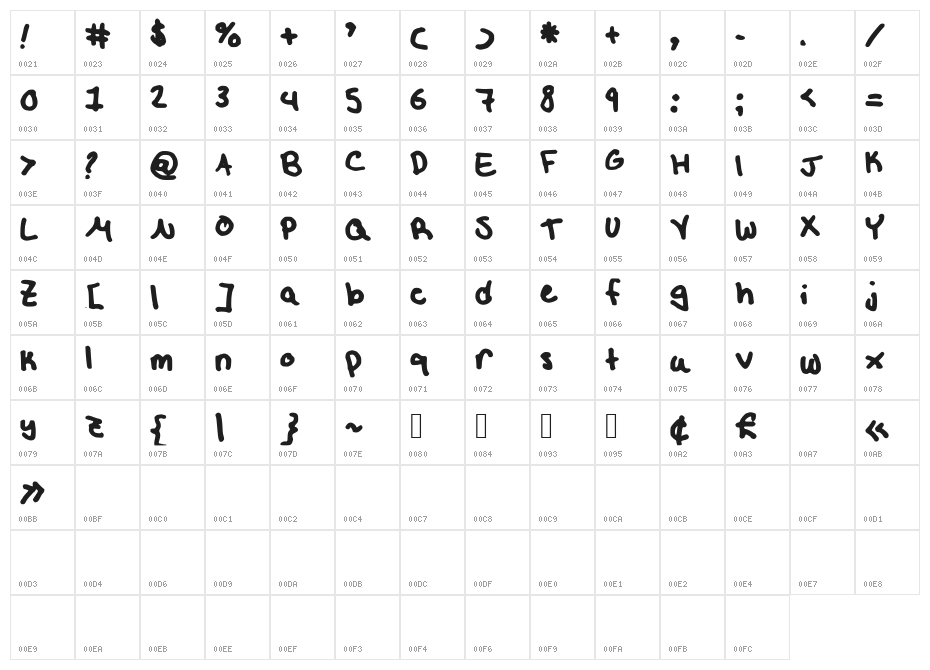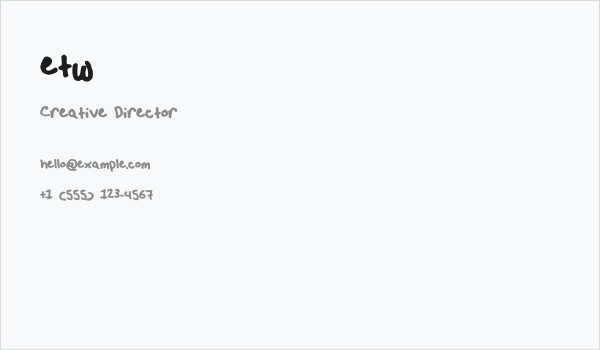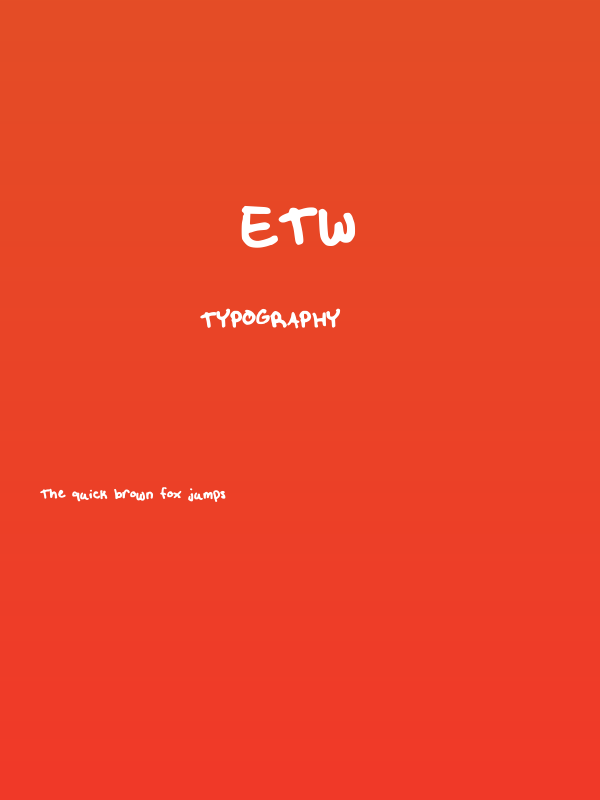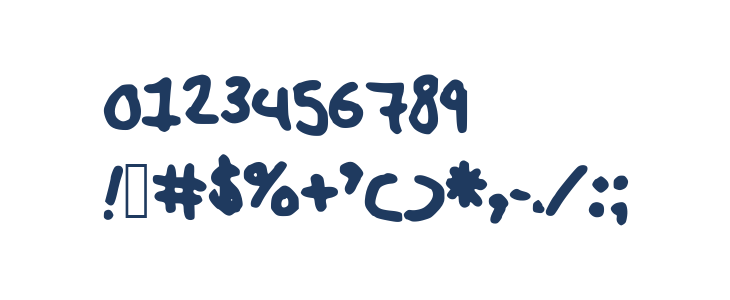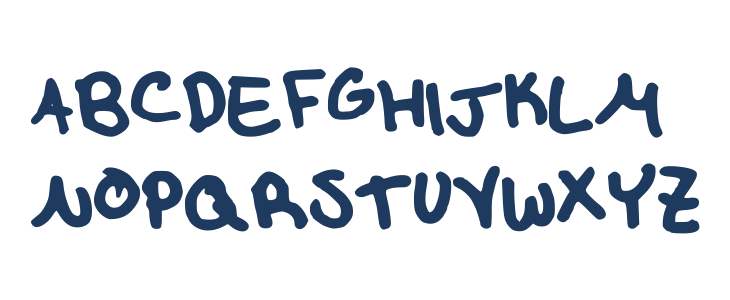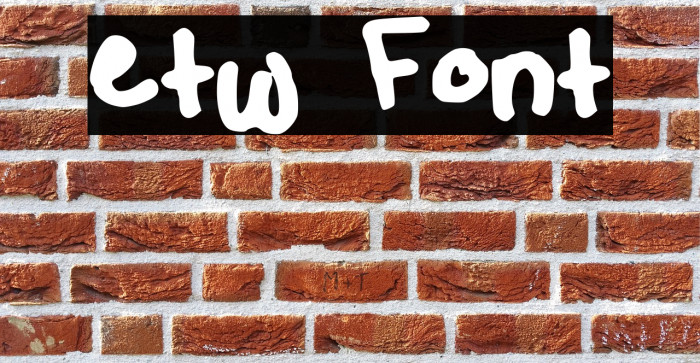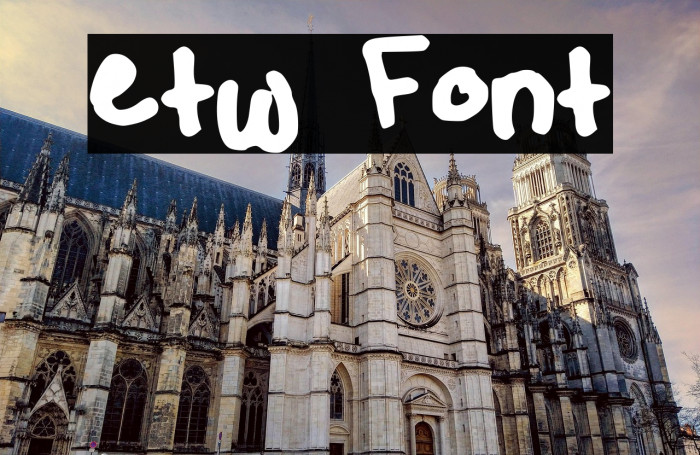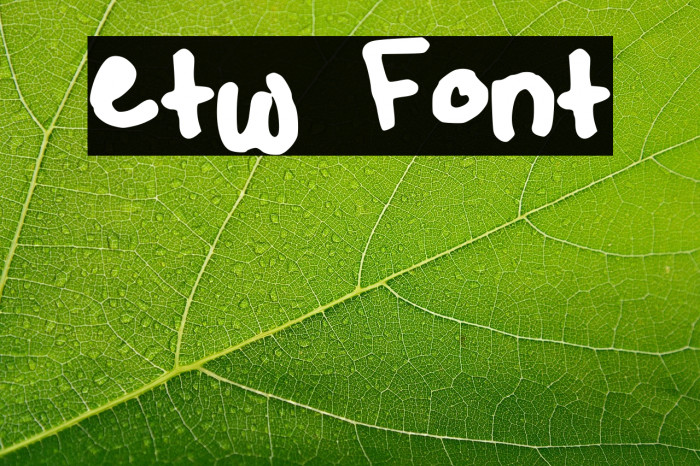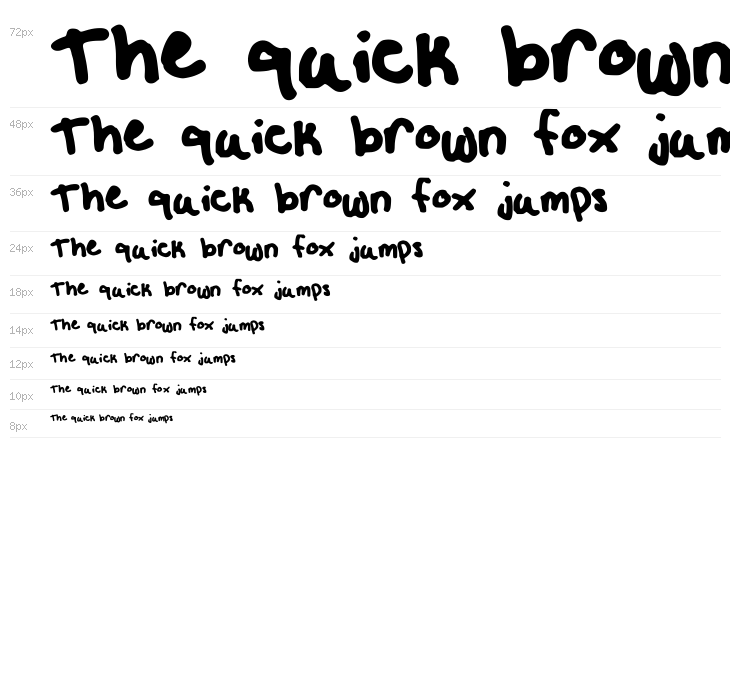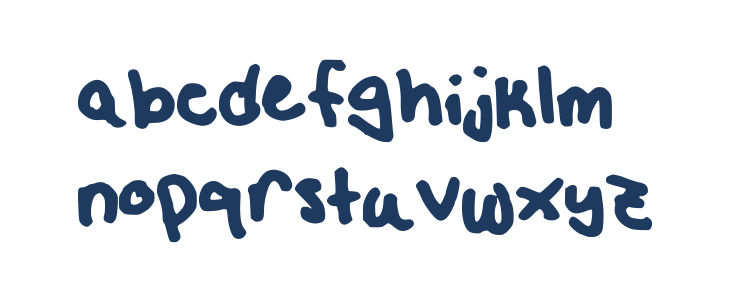
etw Font
etw Description
Playful, handwritten style font with rounded, irregular shapes and a casual appearance.
| Overall Style | Casual, Playful, Handwritten |
| Use Case | Headlines, Children's materials, Creative projects, Invitations |